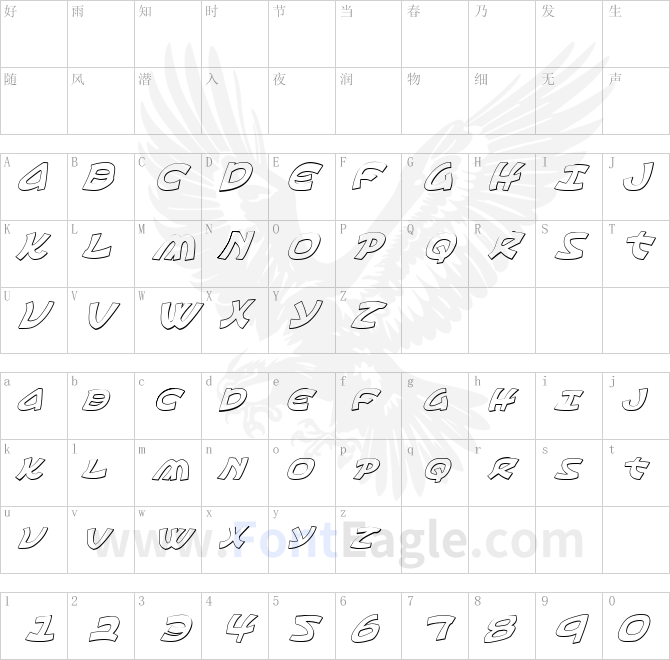
- Font name:Ephesian 3D Italic
- Font Subfamily:3D Italic
- Font Subfamily ID:Ephesian 3D Italic: 2007
- Font Full Name:Ephesian 3D Italic
- Font Version:Version 1.0; 2007
- Postscript:Ephesian3DItalic
- Font Copyright:2007 Iconian Fonts – www.iconian.com